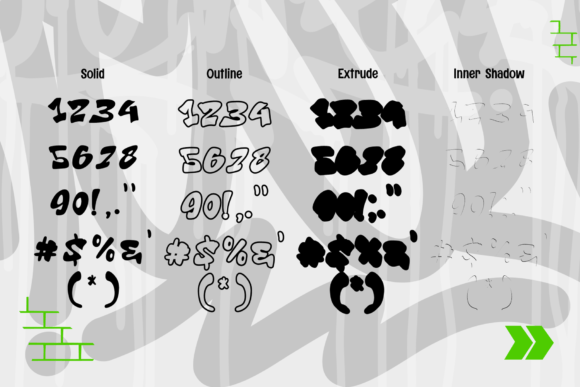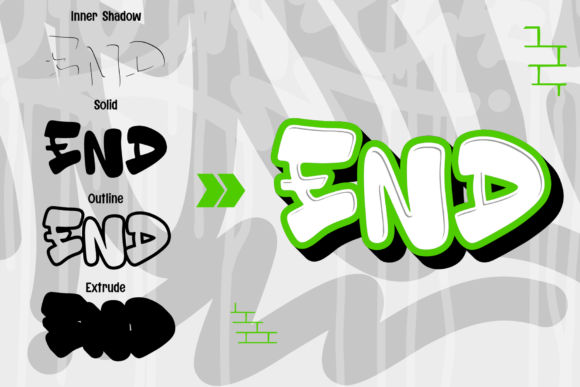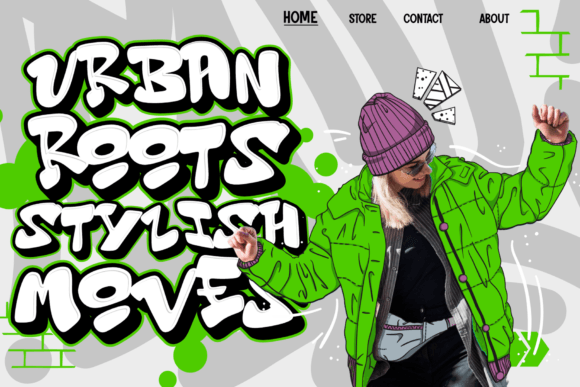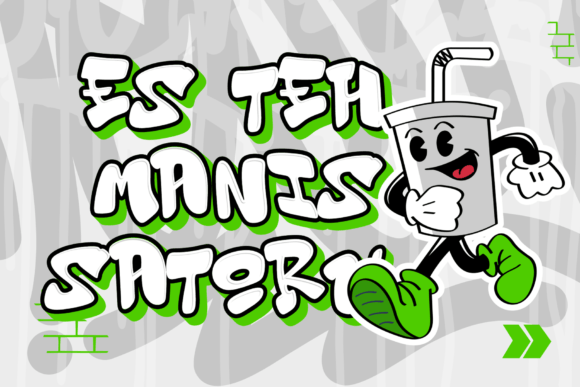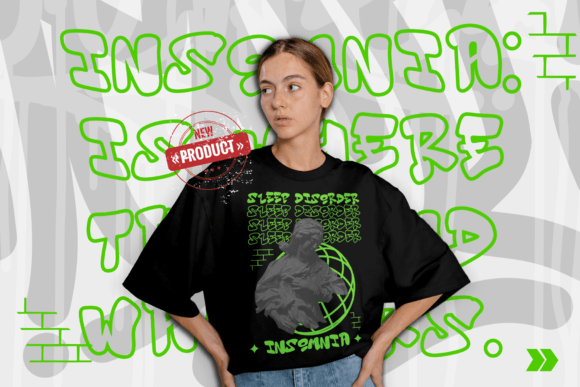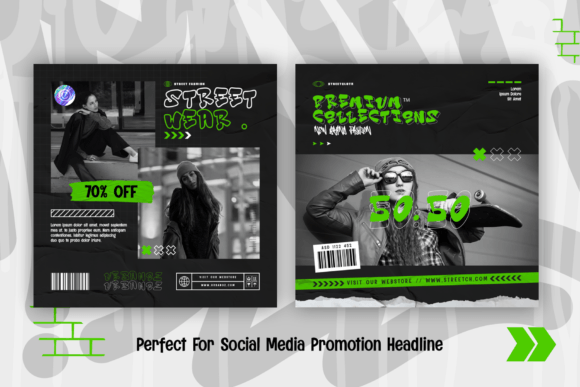
Introduction to Endless Fusion Font
Have you ever stared at a blank canvas, eager to unleash your creativity but struggling to find the perfect font to set your artistic vision ablaze? That’s exactly where the Endless Fusion Font comes in – a game-changing, high-quality design resource that’s sure to breathe new life into your creative projects. With its four eclectic styles and smooth rounded edges, this versatile typeface is perfect for adding a touch of modernity and raw energy to your designs.
Whether you’re working on a streetwear apparel campaign, crafting captivating social media captions, or building an avant-garde website, the Endless Fusion Font is an invaluable asset for designers. Its diverse styles and bold, edgy demeanor make it an ideal choice for infusing a potent, contemporary ambiance into your work. And the best part? This design resource is available for free download, complete with a transparent background, making it easy to incorporate into your creative project.
Key Features of Endless Fusion Font
- High-quality design resource for creative projects: Endless Fusion Font offers a unique blend of styles and typography, making it an ideal choice for designers and artists.
- Size: 20,000+ glyphs, including a wide range of characters, symbols, and ligatures, to help you express your creativity and bring your designs to life.
- Perfect for designers looking for a unique and versatile font to elevate their creative projects and give them a distinctive touch.
Honest Review: Endless Fusion Font
I recently had the chance to work with the Endless Fusion Font, and I must say, it’s been a game-changer for my creative projects. This font is a fantastic addition to any design resource, offering a wide range of styles and versatility.
What works well: ✨ The Endless Fusion Font is incredibly high-quality, with crisp and clear typography. The transparent background makes it easy to integrate with any design, and the font’s flexibility means it can be used for everything from logos to body text.
Here are some of the key features I love about this font:
- High-quality typography
- Wide range of styles and versatility
Limitations: ⚠️ While the Endless Fusion Font is generally excellent, I did encounter some issues with font size and kerning at smaller sizes. However, this is a minor complaint, and the font’s overall quality makes up for it.
Overall impression: I’m thoroughly impressed with the Endless Fusion Font. It’s a valuable addition to any design toolkit, and its high quality and versatility make it a must-have for any creative project. Whether you’re working on a logo, brochure, or website, this font is sure to deliver.
Getting the Most Out of Endless Fusion Font
To get the most out of Endless Fusion Font, use it in combination with other design elements to create a cohesive and visually appealing design. Experiment with different font sizes, colors, and arrangements to find the perfect look for your creative project.
Endless Fusion Font is commonly used in graphic design, digital art, and typography projects. Its high quality and transparent background make it perfect for creating eye-catching graphics, logos, and text overlays.